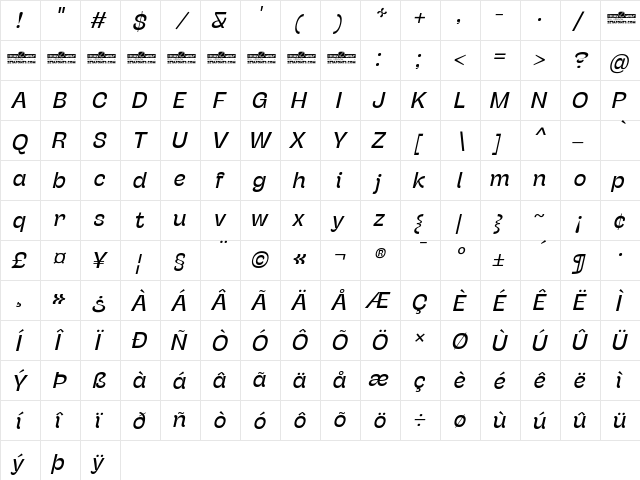
Stinger Trial Italic
| Foundry | Studio Kmzero & Zetafonts |
| Designer | Cosimo Lorenzo Pancini |
Design Context for Stinger Trial Typeface
Stinger Trial offers clean, dependable letterforms without strong stylistic allegiance, making it a practical choice for designers who need flexibility. Its italic angle brings a sense of urgency and motion to the letterforms.